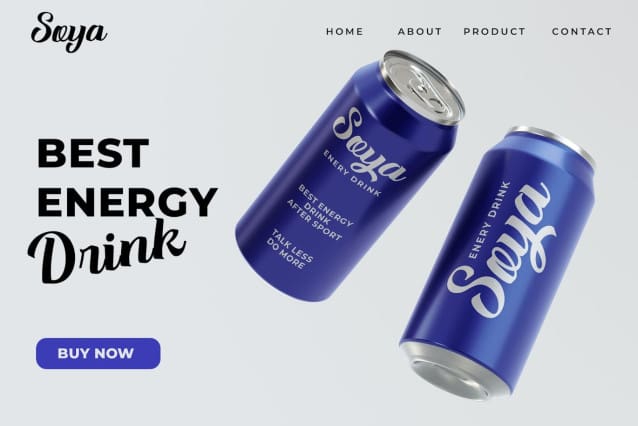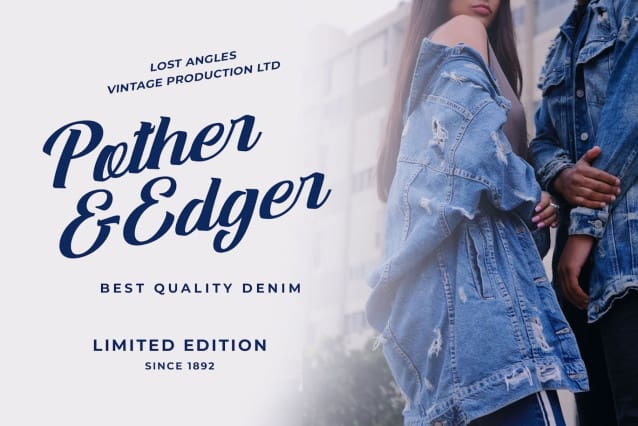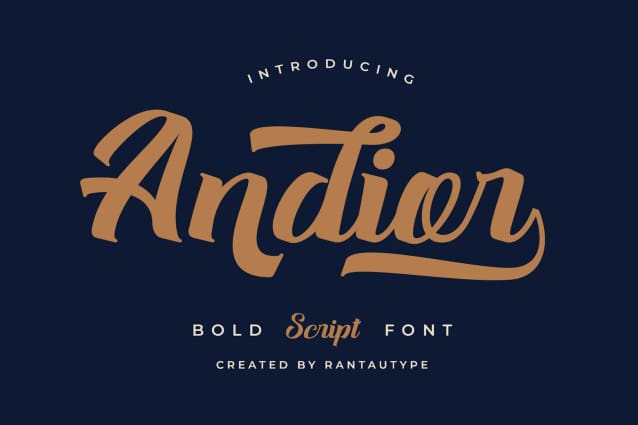
Andior Bold Script Font
Andior Bold Script Font, is a script font with a strong style. Andior It has a smooth shape and makes your design even more impressive. Andior is a great choice for any creative, chic and lifestyle design, like logos, title, watermark on photography, cover, branding, display and magazine, event wedding, quotes, album cover, business card, corporate project, commercial project and many other design projects. Andior to improve your brand image!